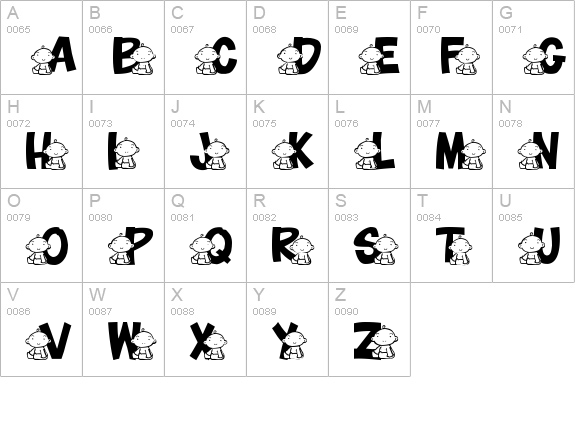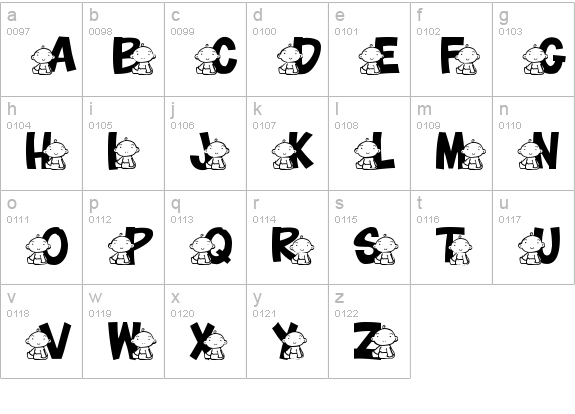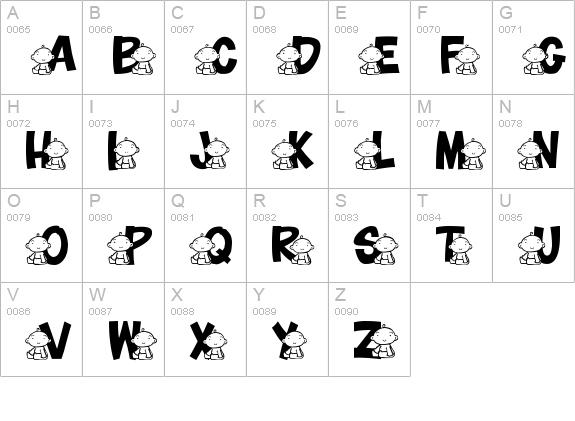
Introducing JLR Baby font, a captivating typeface that effortlessly combines playfulness with elegance. This font is perfect for adding a touch of charm and personality to any design project, whether it's for a children's book, a baby shower invitation, or a whimsical logo. JLR Baby font features a delightful mix of rounded edges and smooth curves, creating a soft and welcoming aesthetic that instantly evokes feelings of joy and innocence. The letterforms are beautifully balanced, making it easy to read and pleasing to the eye. One of the best things about JLR Baby font is that it's free! Yes, you heard that right. This adorable font is freely available to download at FontsMarket.com, making it accessible to designers and creatives of all levels. Whether you're a seasoned professional or just starting out, you can now bring a touch of magic to your projects without breaking the bank. With its versatile nature, JLR Baby font offers a wide range of possibilities. Its lowercase and uppercase letters seamlessly complement each other, allowing for endless combinations and creative exploration. Additionally, the font comes with a variety of punctuation marks and special characters, giving you the freedom to add those extra touches of whimsy to your designs. The JLR Baby font is not only visually appealing but also incredibly easy to use. Its clean and well-defined outlines ensure smooth printing and legibility across different mediums. Whether you're working on digital designs or traditional print materials, this font guarantees professional and high-quality results every time. So why wait? Let your imagination run wild and unlock the endless possibilities that JLR Baby font has to offer. Download it for free at FontsMarket.com and give your designs that extra dash of sweetness and charm they deserve.